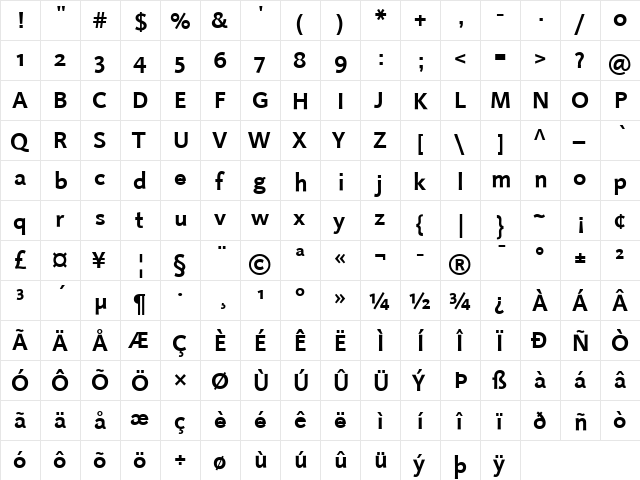
LinotypeProjekt Bold
| Foundry | Linotype Library GmbH or ist affiliated Linotype-Hell companies |
Design Context for LinotypeProjekt Typeface
LinotypeProjekt offers clean, dependable letterforms without strong stylistic allegiance, making it a practical choice for designers who need flexibility. Its bold stroke weight gives it real presence on the page.